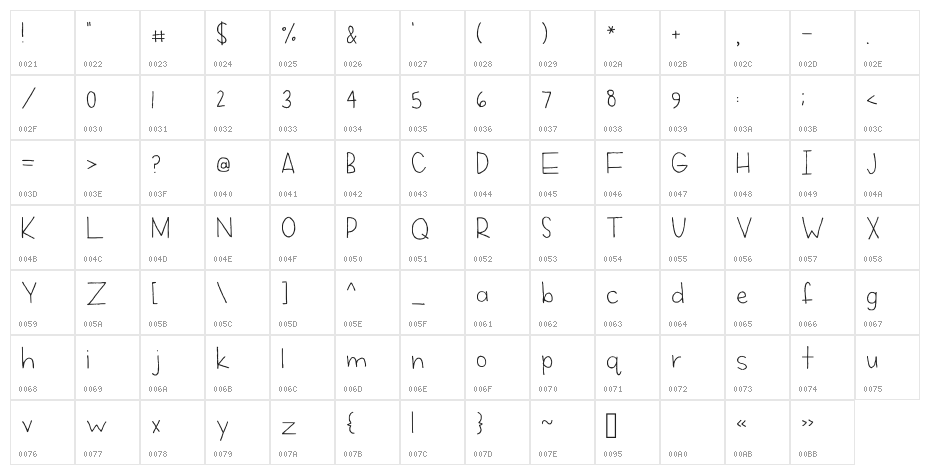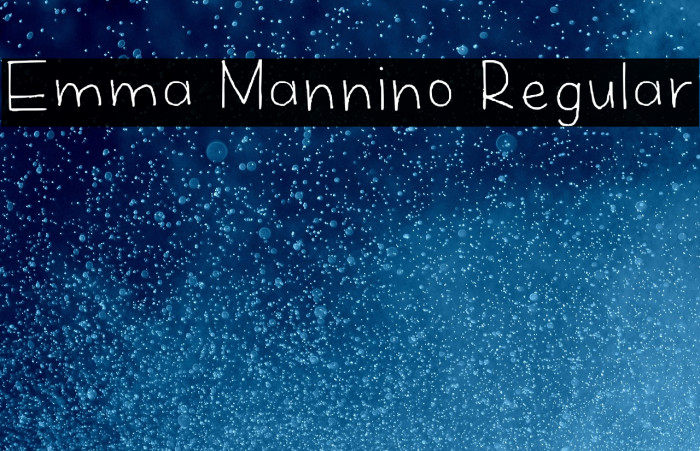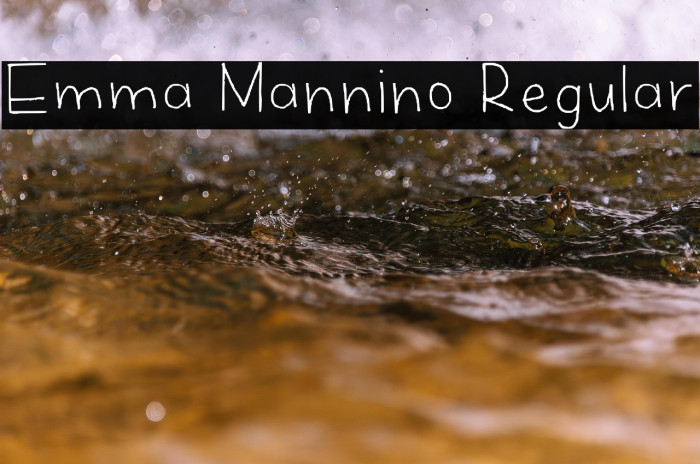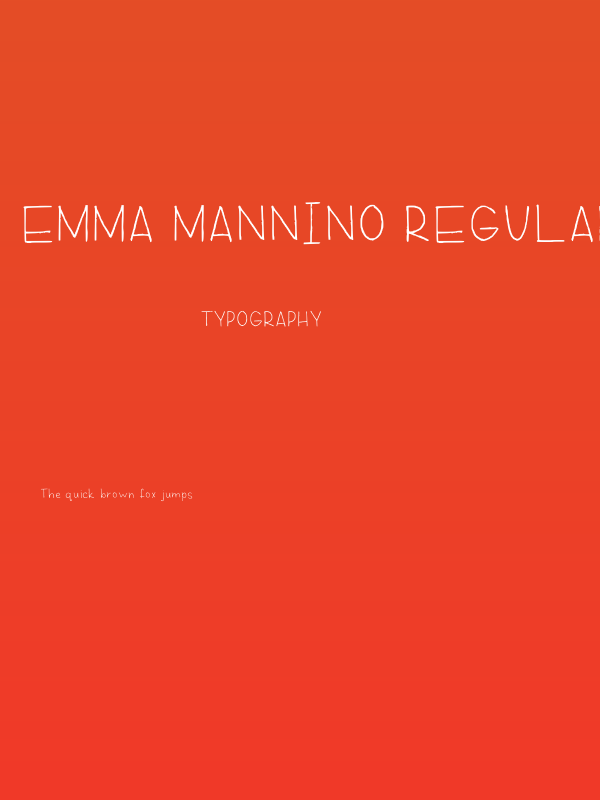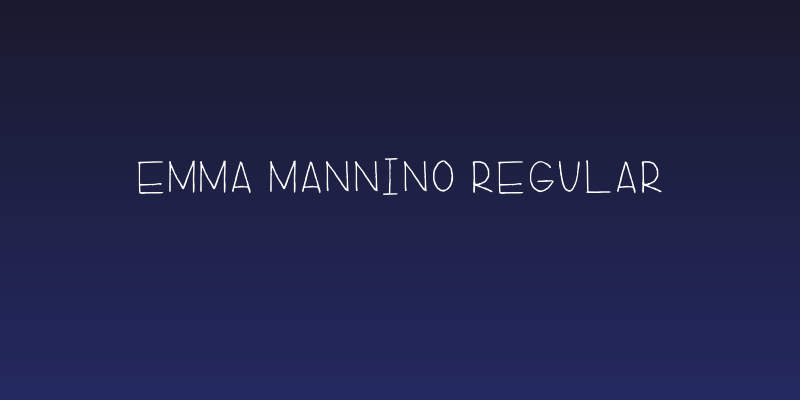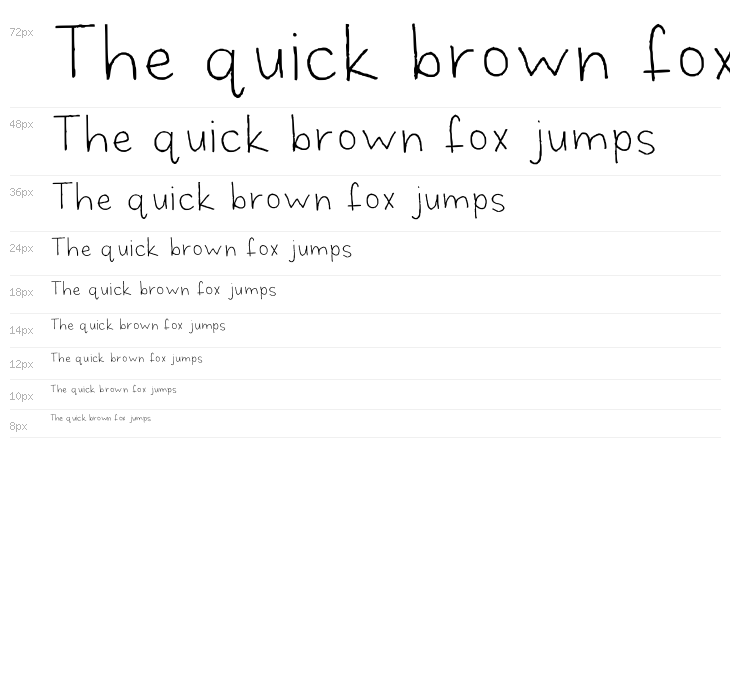
Emma Mannino Regular Font
Emma Mannino Regular Description
This font features a playful and handwritten style, characterized by its irregular strokes and casual appearance. The letters have a slightly uneven baseline, adding to the informal and approachable feel. The uppercase and lowercase letters are distinct, with a whimsical touch that makes them stand out. Numbers and special characters maintain the same hand-drawn aesthetic, ensuring consistency across all elements. The font's simplicity and charm make it suitable for projects that require a personal or creative touch.
| Proposed Projects | Ideal for greeting cards, children's books, personal blogs, and creative branding projects. |